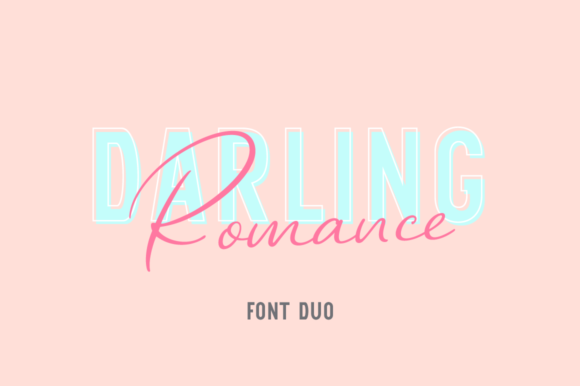
Discover the Perfect Pair: Darling Romance Duo Font
As a designer, there’s nothing quite like the thrill of falling in love with a new font. You’re browsing through your favorite font library, scrolling through page after page of beautiful typography, when suddenly, you stumble upon it – the perfect pair that makes your heart skip a beat. For me, that moment came when I discovered the Darling Romance Duo Font.
This elegant font duo is a game-changer for designers, offering a range of versions that allow you to create unique and captivating designs with just one font. Whether you’re working on a logo, magazine, poster, or quote, the Darling Romance Duo Font is the perfect choice. Its striking and elegant style is sure to leave a lasting impression on your audience, making it a valuable addition to any designer’s toolkit.
Darling Romance Duo Font Key Features
- Font Family: Darling Romance Duo is a unique, hand-drawn font duo consisting of two fonts: Darling Romance Script and Darling Romance Sans.
- Character Count: Each font contains over 1,000 characters, including uppercase and lowercase letters, numbers, punctuation, and special characters.
- Unique Characteristics: The Darling Romance Duo font features elegant, cursive script and modern sans-serif designs, perfect for creating romantic and sophisticated visual identities.
Darling Romance Duo Font Review
As a designer, I’ve had the chance to work with many fonts, but the Darling Romance Duo Font is one that truly stands out. ✨ The font’s elegant script and cursive styles make it perfect for adding a touch of romance to any design project. The subtle flourishes and connections between letters create a sense of fluidity, making it ideal for wedding invitations, love letters, and other sentimental projects.
The font’s versatility is another highlight. ✨ It can be used in a variety of contexts, from modern and sleek to traditional and vintage-inspired. The font’s flexibility also makes it a great choice for projects where you need to balance different design elements.
- ⚠️ Limited character set: While the font’s script and cursive styles are well-designed, the character set is somewhat limited, making it less suitable for projects that require a wide range of characters.
- ⚠️ Kerning issues: In some cases, the font’s kerning can be off, which may affect the overall legibility of your design.
Overall, the Darling Romance Duo Font is a beautiful and versatile choice for designers looking to add a touch of romance to their projects. While it may have some limitations, its elegant design and flexibility make it a great addition to any design library.
Tip: Use the Darling Romance Duo font in combination with a soft color palette to create a romantic and whimsical design.
Tip: Use the Darling Romance Duo font in combination with intricate illustrations to create a romantic and elegant design.
Tip: Use the Darling Romance Duo font in combination with a simple background to create a clean and romantic design.
The Darling Romance Duo font is perfect for:
- Valentine’s Day and anniversary cards
- Romantic gift tags and labels
- Wedding website and blog designs
Remember to use the Darling Romance Duo font in a way that feels authentic and true to your brand or design style.